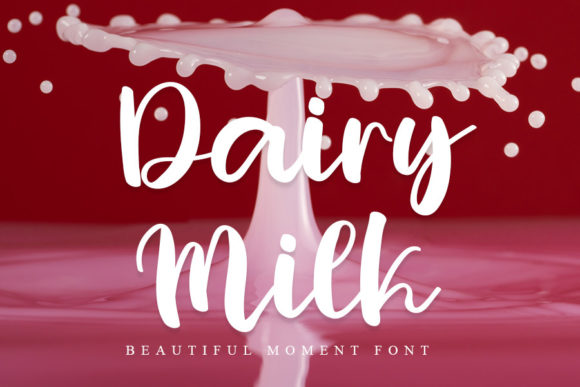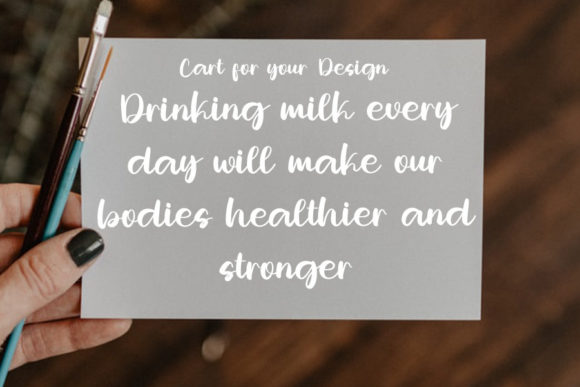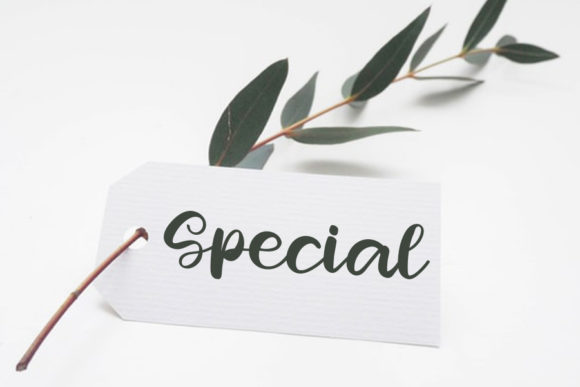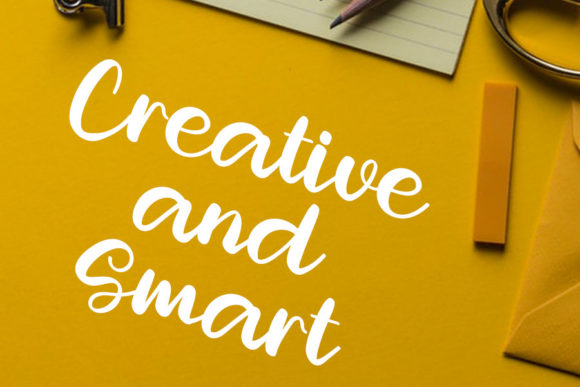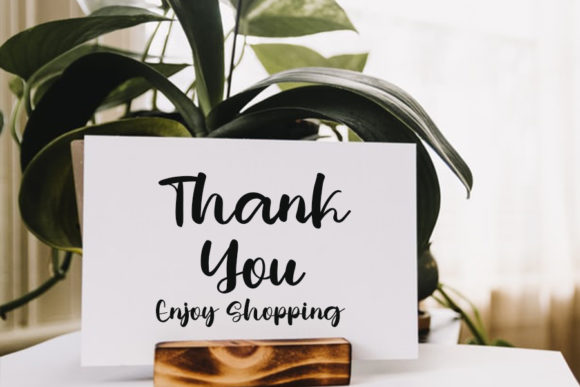
Dairy Milk Font
About Dairy Milk Font
Dairy Milk is a dainty and romantic script font. Add this romantic and lovely looking font to each of your love letters, wedding invitations or favorite design ideas, and you will be astounded by the outcome.